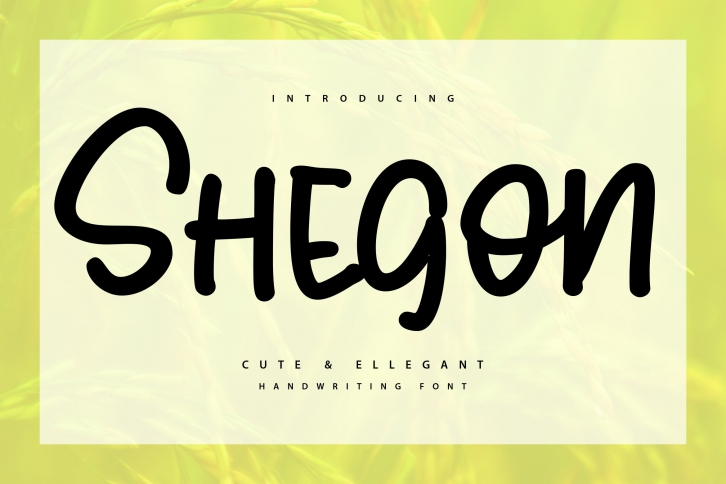
Shegoon is a beautiful font that was designed by Vunira. It's a great choice for designers and creatives who need such a font. It was released on January 9, 2021 and the file size is 8.26 MB. Shegoon may give a more youthful, expressive and casual look to your project. It is a very beautiful, refined, elegant, and high-quality font.